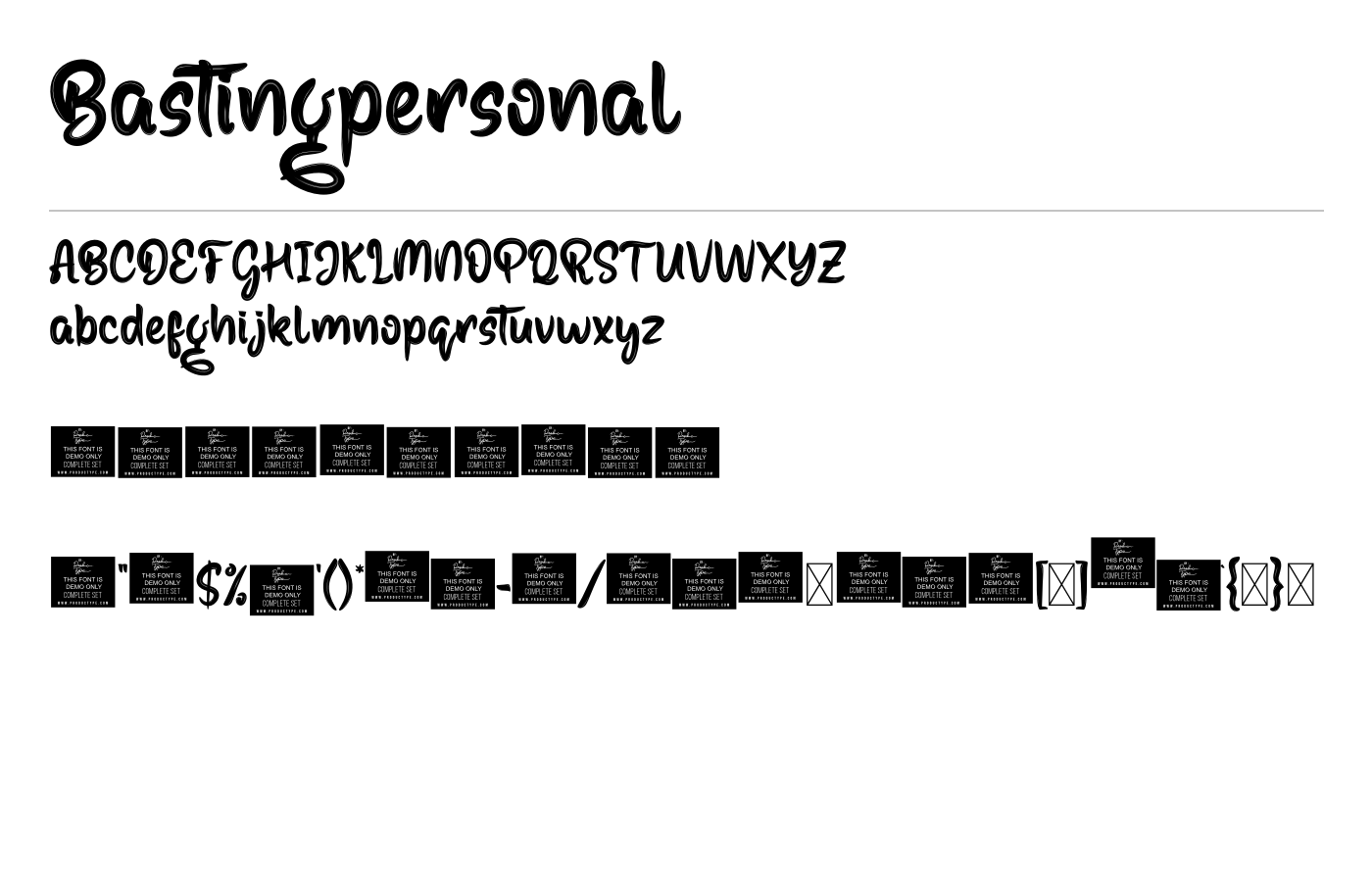
Bastingpersonal is a playful and bold script font with a handcrafted feel, featuring thick strokes and smooth, curvy letterforms that bring warmth and personality to any design. Its lively style makes it ideal for creative projects like branding, packaging, and headlines where a friendly and approachable mood is desired. This font works beautifully for designs that want to evoke fun, originality, and a touch of casual elegance.
Bastingpersonal Font
About Bastingpersonal Font